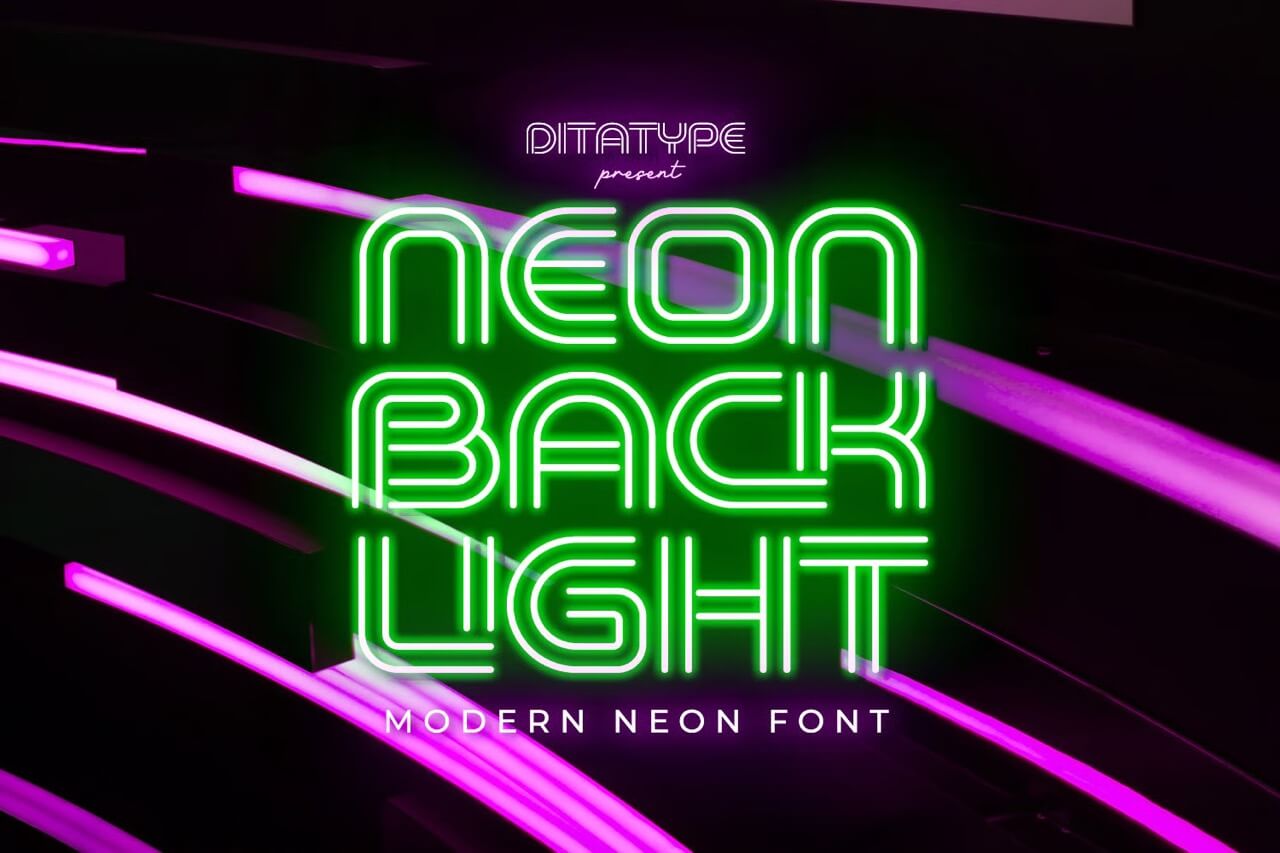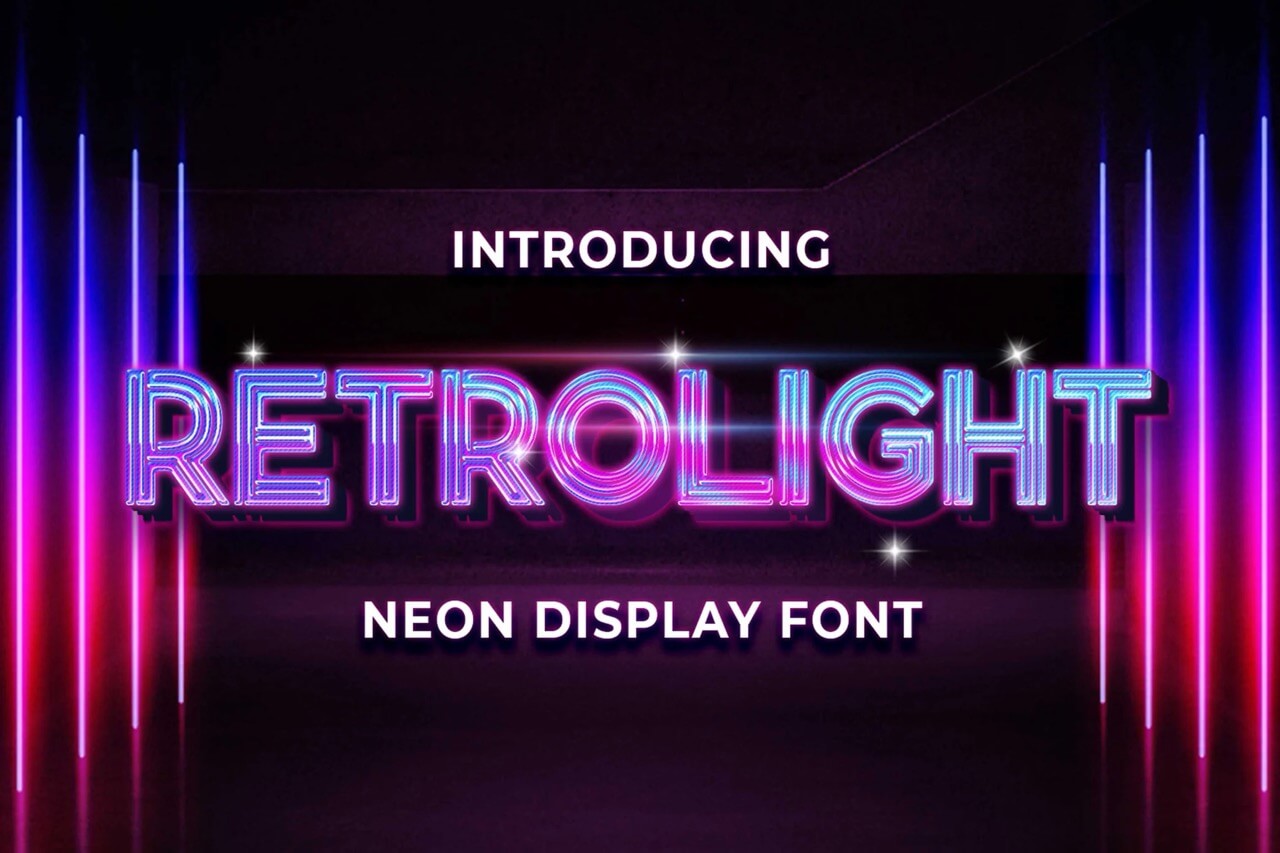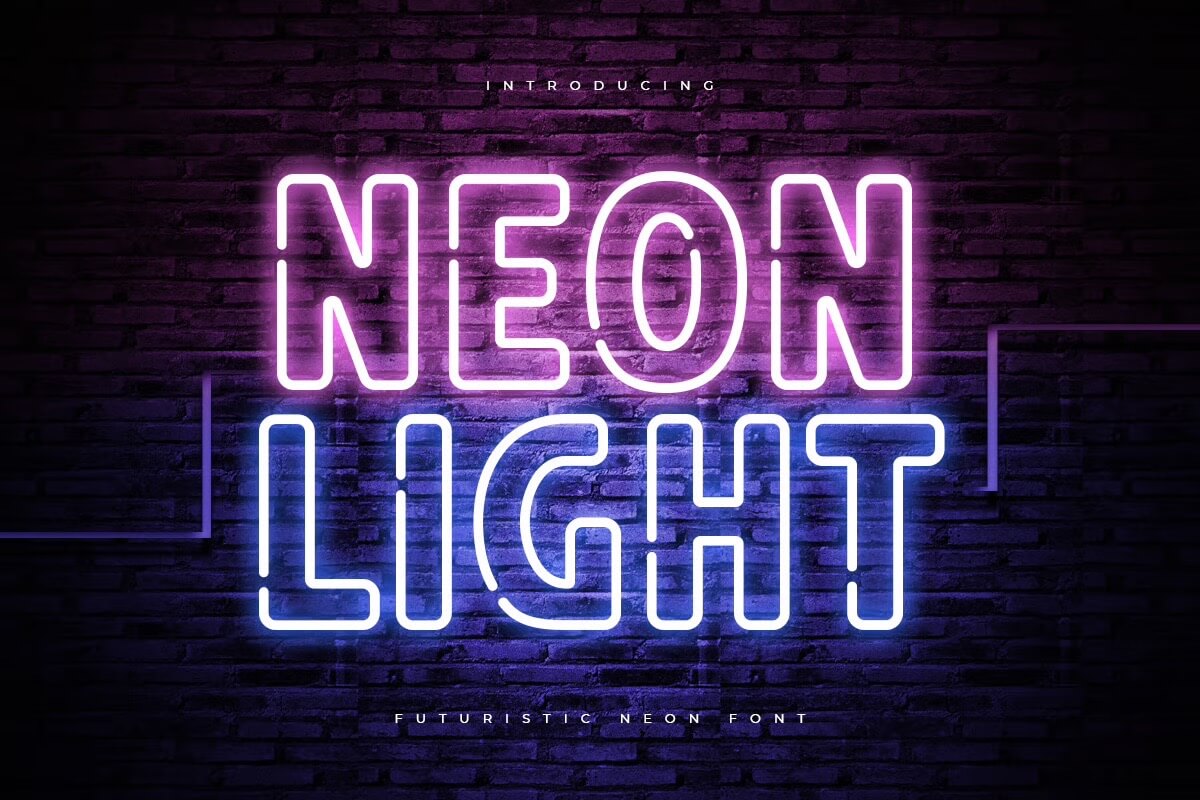
7+ Font with Lights and Neon Fonts [Not Vector]
Have you ever looked at a bright neon sign and thought, I wish my design could have that kind of element?
If so, good for you! Today, weāre touching on neon font magic. From a light font with a subtle glow to strong neon lights hanging outside a retro diner.
This article is of great value, because Iāll show you how to choose, how to use, and how the correct neon font for your project in conjunction with what kind of style so that your work can give people a fresh, nostalgic feeling as well feeling of happiness elegant lively and vibrant.
Layout your neon font well; these small details will make it feel complete, not like a trashy filter.
What makes a neon font look so striking and how do neon lights affect your design
What you see in neon font is actually a play with light, shape and contrast. The reason that neon letters are so striking is because the glowing part is a natural part of the design.
Designers who understand neon can take this kind of treatment in a very strong visual direction. Good neon design prioritizes controlled āglowā over brightness for its own sake.
In the beginning, I thought that all a neon sign needed was an outline of light to work. Later, I realised that this meant giving the glow time and space to spread out.
A neon font works best when there is negative space around each letter; the light takes one step and then expands.
If the letters are too close together, the entire thing begins to glow like a bright red blob. Thatās why most neon letter fonts look a little wider. Form supports the effect.
Neon fonts also have emotional connotations. With their 80s arcades, lively night markets, tatty old tea houses, or modern art installations, these signs are of an era and immediately feel that way.
Such emotional pull is likely one reason neon signs are still in use today.
Neon Backlight
Neon Backlight feels like a night out in the city, glowing with energy and style. Its bold uppercase letters shine with a vibrant neon effect that instantly grabs attention. Perfect for posters, logos, or anything that needs that electric, futuristic vibe.
Retrolight ā Retro Neon Display
Retrolight feels like stepping into a glowing city night filled with vintage signs and electric vibes. Itās bold, smooth, and full of personality, perfect for designs that need that retro spark and a touch of neon magic to stand out.
PartyĀ ā Modern Fun Neon Font
This font instantly gives off a fun, electric vibe that feels perfect for parties, events, or anything that needs a burst of energy. The glowing neon look makes every word pop, adding a playful and modern touch that grabs attention right away.
Neon LightĀ ā Futuristic Neon Font
This font has that cool futuristic glow that instantly grabs attention. It feels modern, stylish, and perfect for anything that needs a bold statement. I love how it gives off that neon sign vibe while still looking clean and easy to read.
Start by collecting reference images. Look at real neon signs, not just digital fonts. Notice how the tubes bend, how the colors shift and how the glow interacts with the background.
Then explore a variety of neon fonts. Compare their typeface styles. Try mixing a modern neon font with a retro decorative element. Try pairing light fonts with neon accents. Play with geometric shapes.
The more you experiment, the more you will understand how text behaves with glow, contrast and color. Over time, you will find your signature neon typography style.